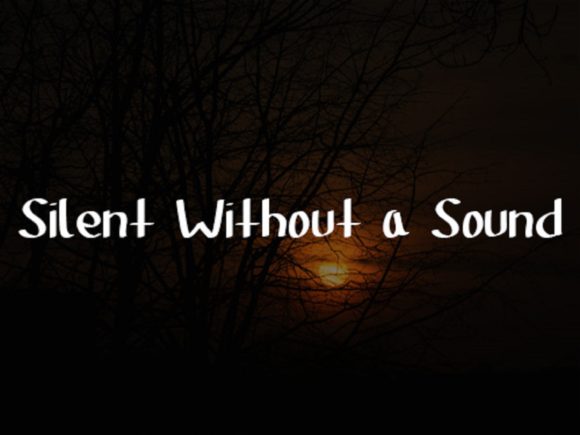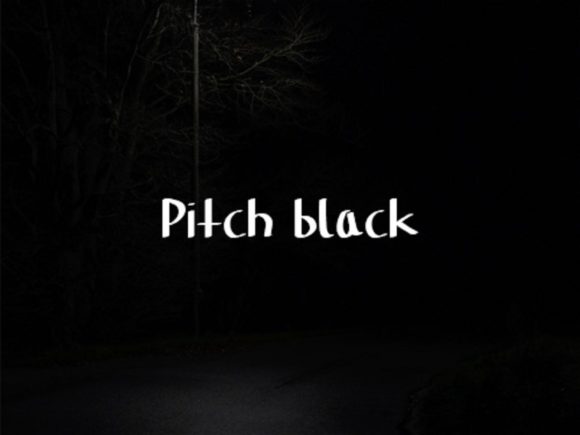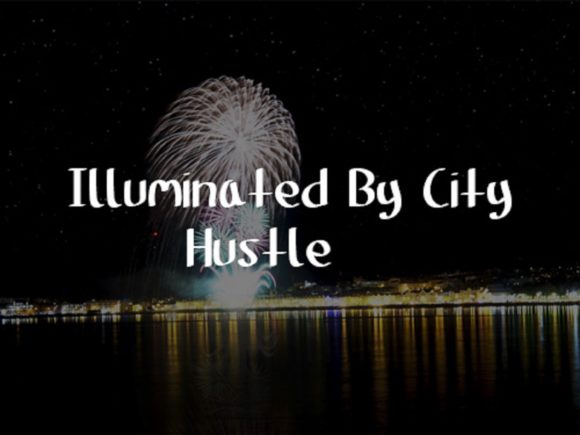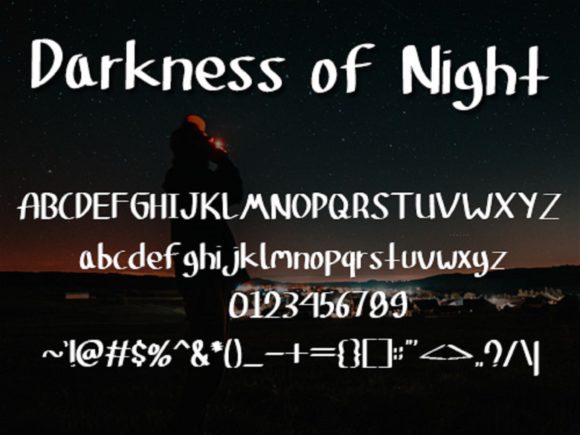
Unveiling the Charm of Darkness of Night Font: A Comprehensive Guide
In the realm of typography, the right font can elevate your design, making it more captivating and engaging. For those seeking a cool, natural, and simple handwritten font, look no further than the Darkness of Night Font. This versatile font is perfect for a myriad of creative projects, including crafting, digital designing, presentations, and greeting cards making. In this article, we’ll delve into the unique characteristics of the Darkness of Night Font, its uses, and why it’s a must-have for designers and crafters alike.
What is Darkness of Night Font?
Darkness of Night Font is a beautifully crafted handwritten font that exudes a sense of simplicity and elegance. Its natural and effortless style makes it an excellent choice for a wide range of design projects. Whether you’re creating a digital masterpiece, a handmade craft, or a professional presentation, this font is sure to add a touch of sophistication and charm.
Key Features of Darkness of Night Font
- Handwritten Style: The Darkness of Night Font boasts a genuine handwritten look, making it perfect for designs that require a personal touch.
- Cool and Natural: Its unique style is both cool and natural, allowing your designs to stand out without appearing too formal or generic.
- Simple yet Elegant: The simplicity of this font is its greatest strength, making it versatile enough to be used in various design contexts.
- Versatile: From crafting and digital designing to presentations and greeting cards, this font can be used across a broad spectrum of creative projects.
Uses of Darkness of Night Font
The versatility of the Darkness of Night Font makes it an invaluable asset for designers and crafters. Here are some of the many ways you can utilize this fantastic font:
Crafting
For crafters, the Darkness of Night Font can add a personal and creative touch to your projects. Whether you’re making DIY cards, scrapbooking, or creating handmade decorations, this font can help you achieve a unique and personalized look.
Digital Designing
In digital design, typography plays a crucial role in conveying your message and aesthetic. The Darkness of Night Font can be used in graphic designs, branding, and social media posts to add a touch of warmth and approachability.
Presentations
For presentations, using a professional yet engaging font is key. The Darkness of Night Font can help make your presentations more engaging and visually appealing, without detracting from the content.
Greeting Cards Making
Creating greeting cards requires a font that is both elegant and heartfelt. The Darkness of Night Font is perfect for this, allowing you to craft beautiful and meaningful cards for any occasion.
Why Choose Darkness of Night Font?
With so many fonts available, why should you choose the Darkness of Night Font? Here are a few compelling reasons:
- Unique Style: Its distinctive handwritten style sets it apart from more generic fonts.
- Versatility: It can be used across a variety of projects, making it a valuable addition to your font collection.
- Easy to Read: Despite its handwritten nature, the Darkness of Night Font is clear and easy to read, making it suitable for both digital and print projects.
In conclusion, the Darkness of Night Font is a cool, natural, and simple handwritten font that can elevate your designs, whether you’re a designer or a crafter. Its versatility, unique style, and ease of use make it an excellent choice for a wide range of creative projects. By incorporating the Darkness of Night Font into your workflow, you can add a touch of elegance and charm to your work, making it more engaging and memorable.